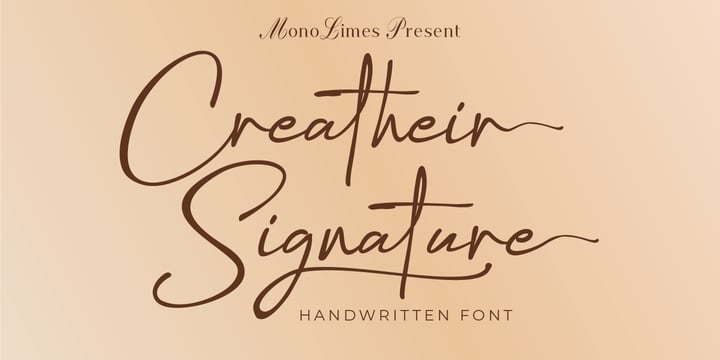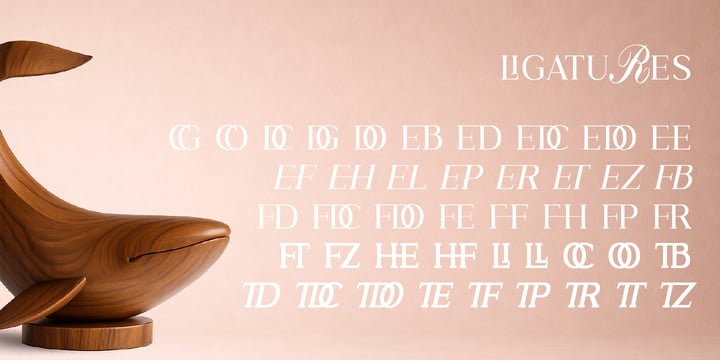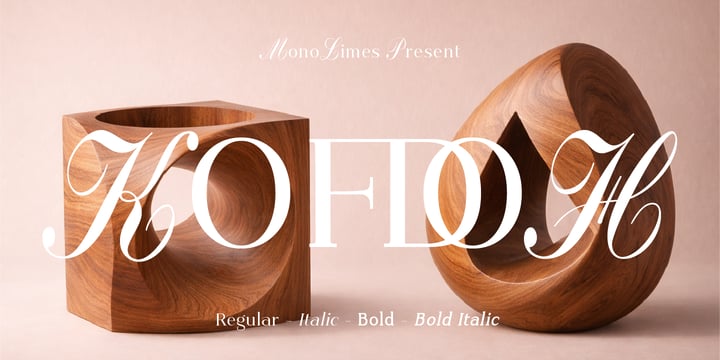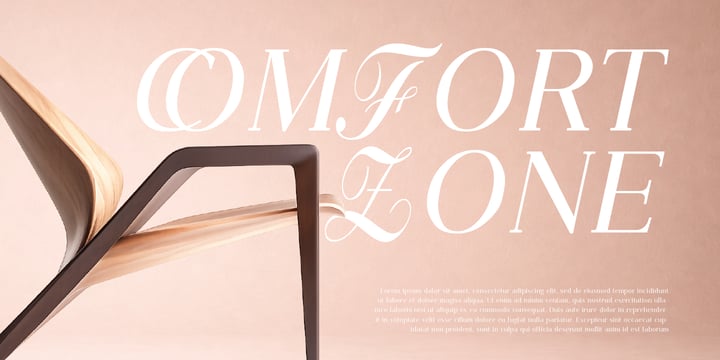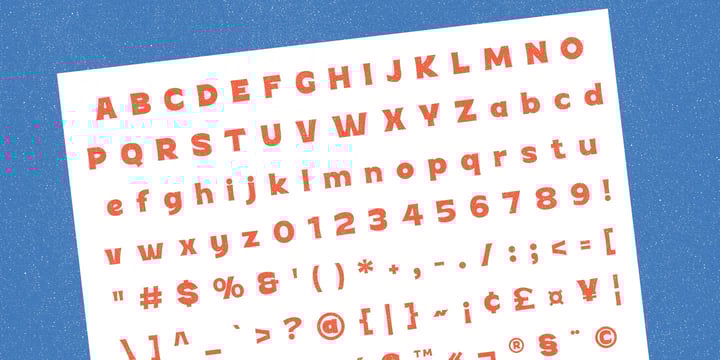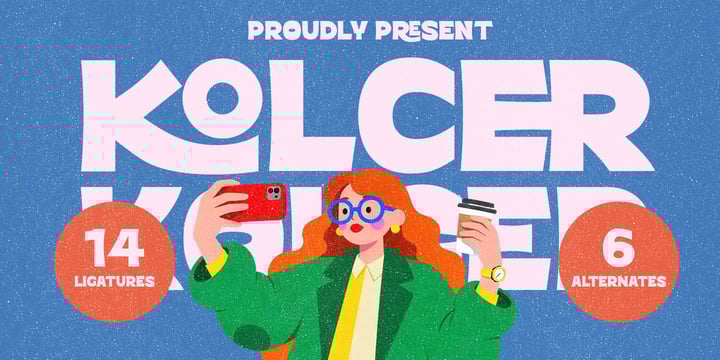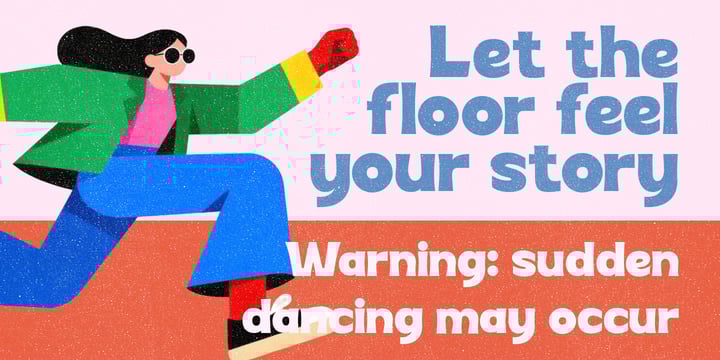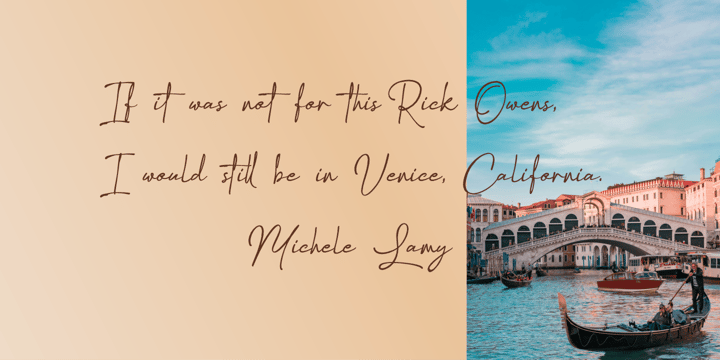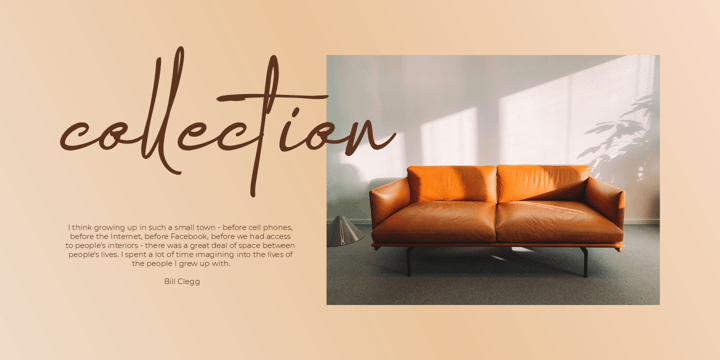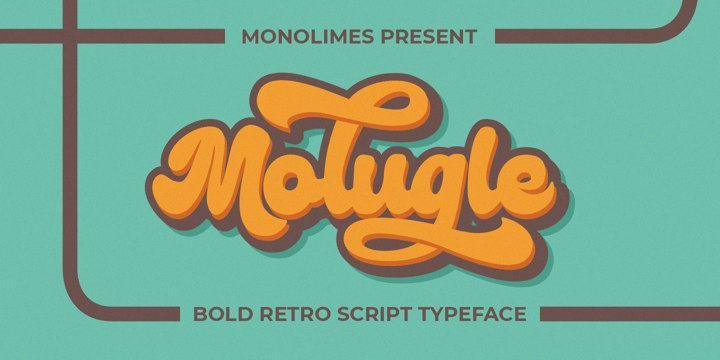
Brainy Javanika Putra
Brainy Javanika Putra is an independent type designer based in Yogyakarta, Indonesia. With roots in graphic design and visual communication, he has developed a strong focus on typography as a tool for clarity, emotion, and cultural expression.
His design philosophy revolves around creating typefaces that feel modern yet enduring — blending clean, structured forms with subtle humanistic details. He places great importance on optical balance, precise spacing, consistent rhythm, and broad language support to ensure fonts perform reliably across print, screen, and diverse writing systems.
Inspired by the precision of Swiss modernism, the warmth of humanist sans serifs, and the dynamic visual culture of Southeast Asia, Brainy aims to craft type that quietly supports strong design while adding its own distinct character. His current work centers on versatile sans-serif families, contemporary grotesques, and expressive display type suitable for branding, editorial design, digital interfaces, packaging, and creative storytelling.
Through Monolimes, he continues to refine his craft with rigorous testing and a commitment to functional beauty.